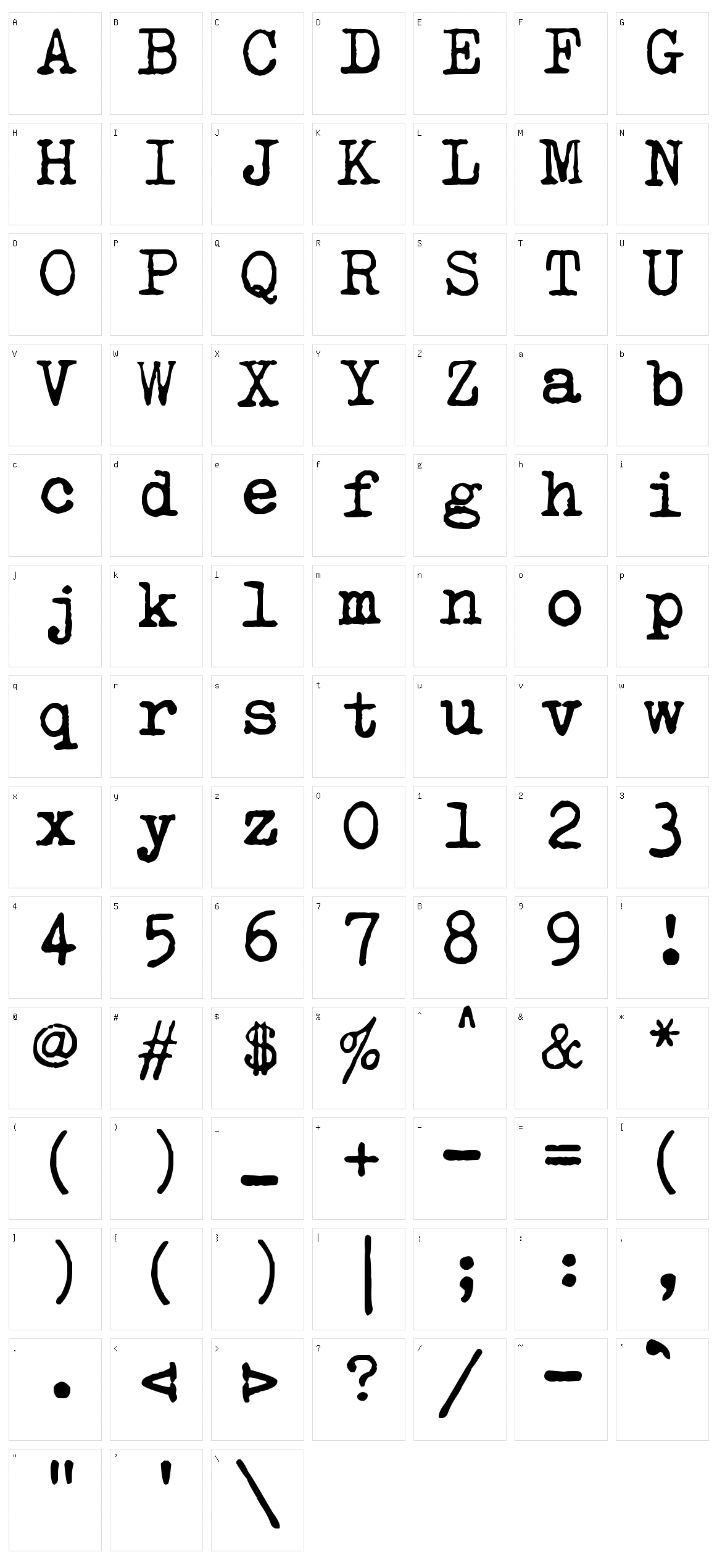
The free font zai Olivetti-Underwood Studio 21 Typewriter is carefully designed by Tomasz Skowroński, showcasing a thoughtful balance of creativity and usability and falls under the Typewriter font style. When you download the ZIP file, it contains only 196.47 KB of font files, making it lightweight and quick to download. Please review the license details below to understand permitted usage and distribution rights. If license information is not available, we recommend using this font for personal projects only or contacting the author directly for commercial usage permissions.